Ever notice how Times New Roman just looks… official? It’s that classic, trustworthy font you’ve seen in textbooks, formal documents, and even important letters. Whether you’re a student typing an essay, a professional preparing a report, or a social media enthusiast creating a clean graphic, sometimes you just need that crisp, timeless look.
But what if you don’t have the font installed on your device? Or maybe you’re working on a project where downloading new software isn’t an option. That’s where a Times New Roman font generator comes to the rescue! These handy online tools let you type any text and instantly see it styled in Times New Roman—no downloads, no installations, no hassle.
In this guide, we’ll introduce you to some of the best Times New Roman font generator tools available. We’ll also explore creative ways to use them and answer common questions so you can make the most of these convenient resources.
What Exactly Is a Times New Roman Font Generator?
A Times New Roman font generator is a web-based tool that converts regular text into the Times New Roman typeface. You don’t need the font pre-installed on your computer or phone. Just type your words, and the generator does the rest.
These tools are perfect for:
- Creating styled text for social media posts
- Designing graphics with a professional touch
- Testing how certain phrases look in Times New Roman before finalizing a document
Most generators are incredibly user-friendly. You’ll usually find a text box where you enter your content, and the tool instantly displays a preview. From there, you can copy the text or download it as an image. Some platforms even let you tweak the size, color, and add effects.
Whether you’re a designer or someone who just wants polished text without the fuss, a Times New Roman text generator can make your work look more put-together in seconds.
Top Times New Roman Font Generators to Try
With so many options online, it can be tough to pick the right tool. To make things easier, we’ve rounded up five reliable, easy-to-use Times New Roman font generator platforms.
CapCut Desktop Video Editor
CapCut isn’t just for editing videos—it’s also a powerful tool for adding beautiful text, including Times New Roman, to your visual projects. Its simple interface makes it accessible even for beginners.
With CapCut, you can seamlessly integrate text into videos, making it ideal for YouTube content, tutorials, presentations, or social media clips. The best part? You can customize font size, color, and positioning to match your video’s style.
How to Add Times New Roman to Videos Using CapCut
- Import Your Video: Open CapCut, start a new project, and import your video file.
- Add and Style Text: Click the “Text” tab, insert a text layer, and type your content. Then, select Times New Roman from the font menu. Adjust the size, color, and placement as needed.
- Export: Once you’re happy with the result, export your video in your preferred format.
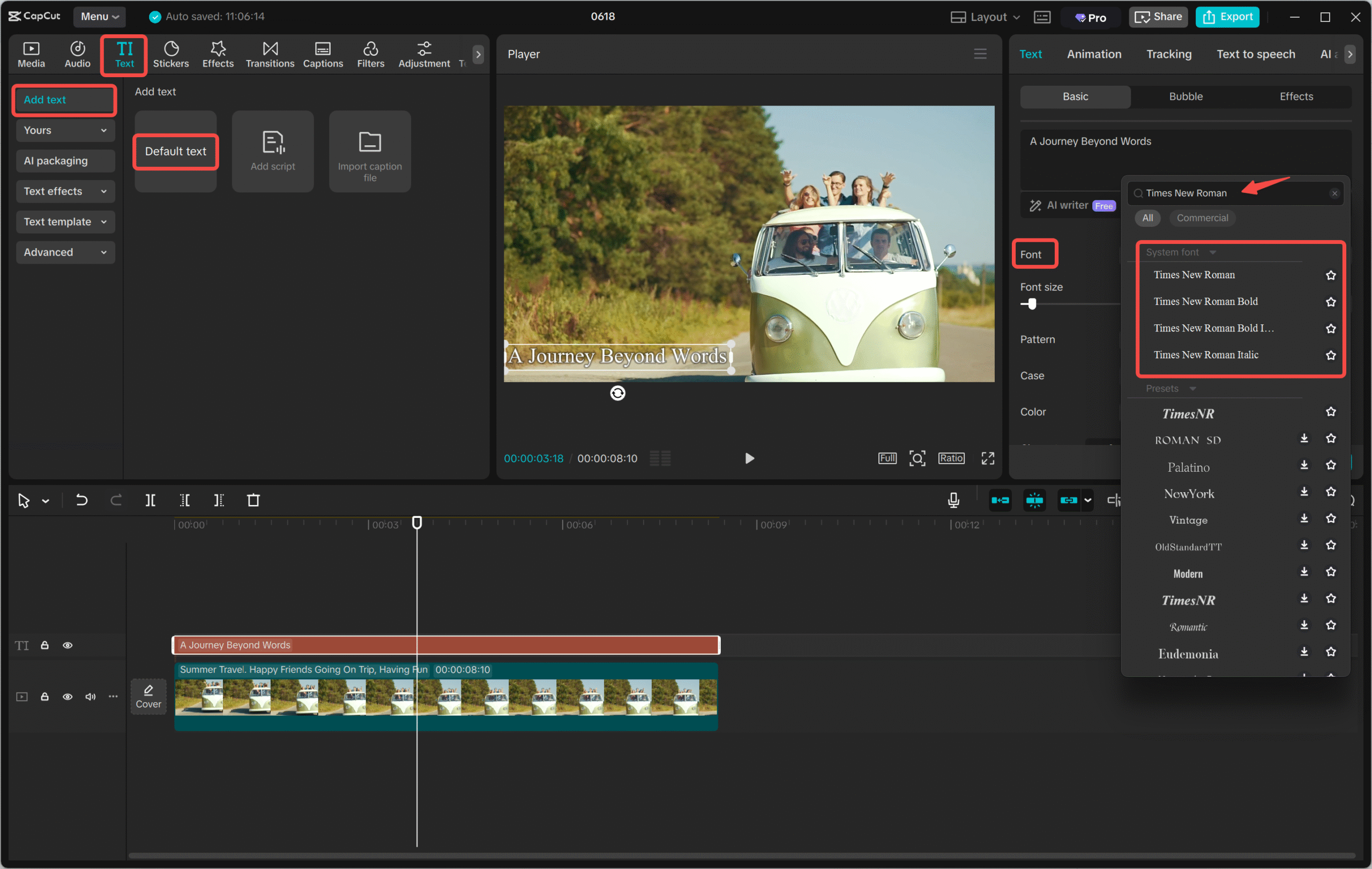
Text Studio
Text Studio is a user-friendly, all-in-one platform perfect for creating text-based graphics. Whether it’s for social media, blog images, or personal projects, this tool lets you generate text in Times New Roman and many other fonts.
You can customize size, color, and effects—all through your web browser. No installation needed.
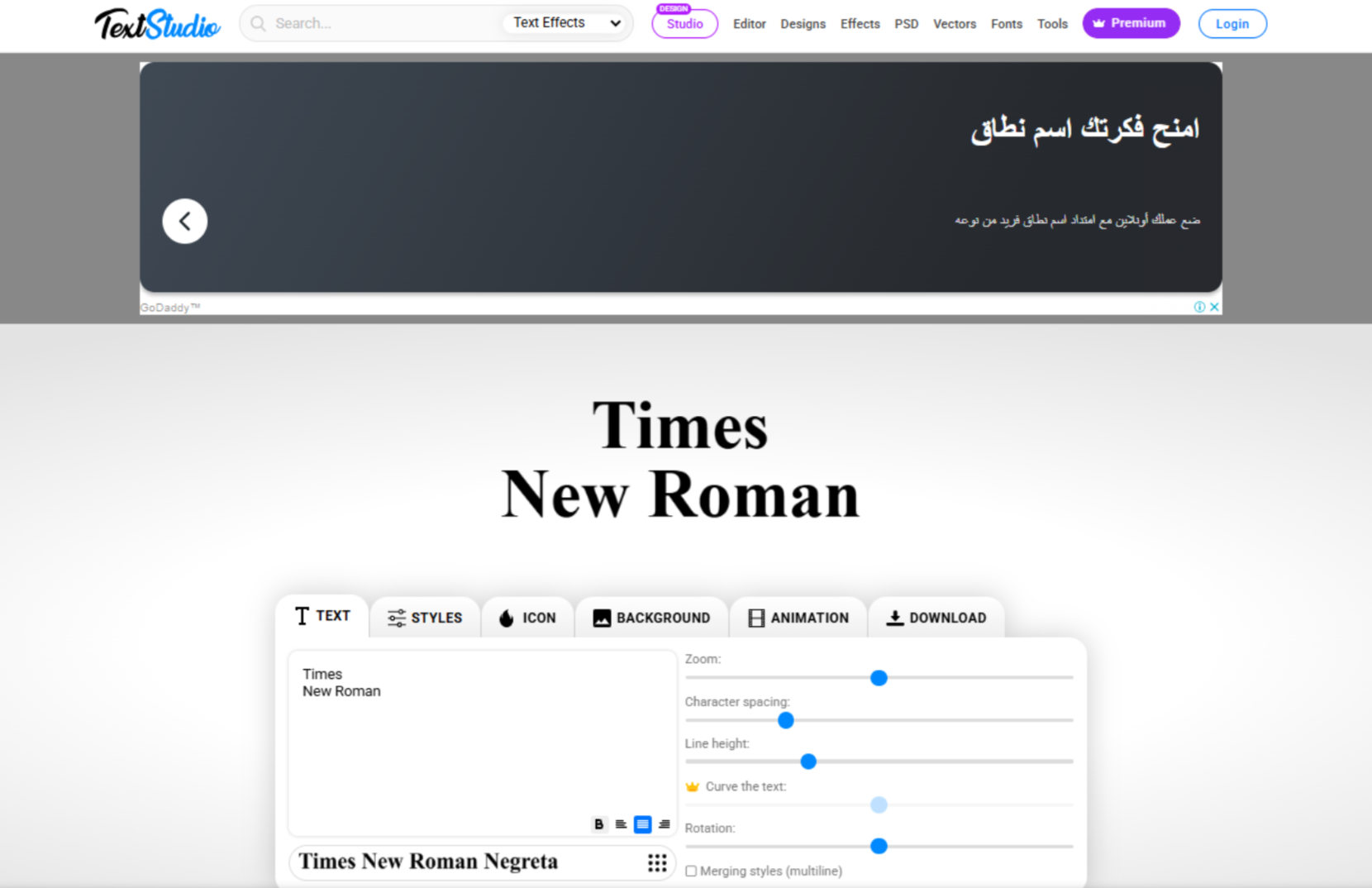
InstaFonts
If you’re looking for speed and simplicity, InstaFonts is a great Times New Roman font generator copy and paste tool. It’s designed for social media users who want to quickly create elegant text for captions, comments, or stories.
Just type, preview, copy, and paste—it’s that easy. And it’s completely free.
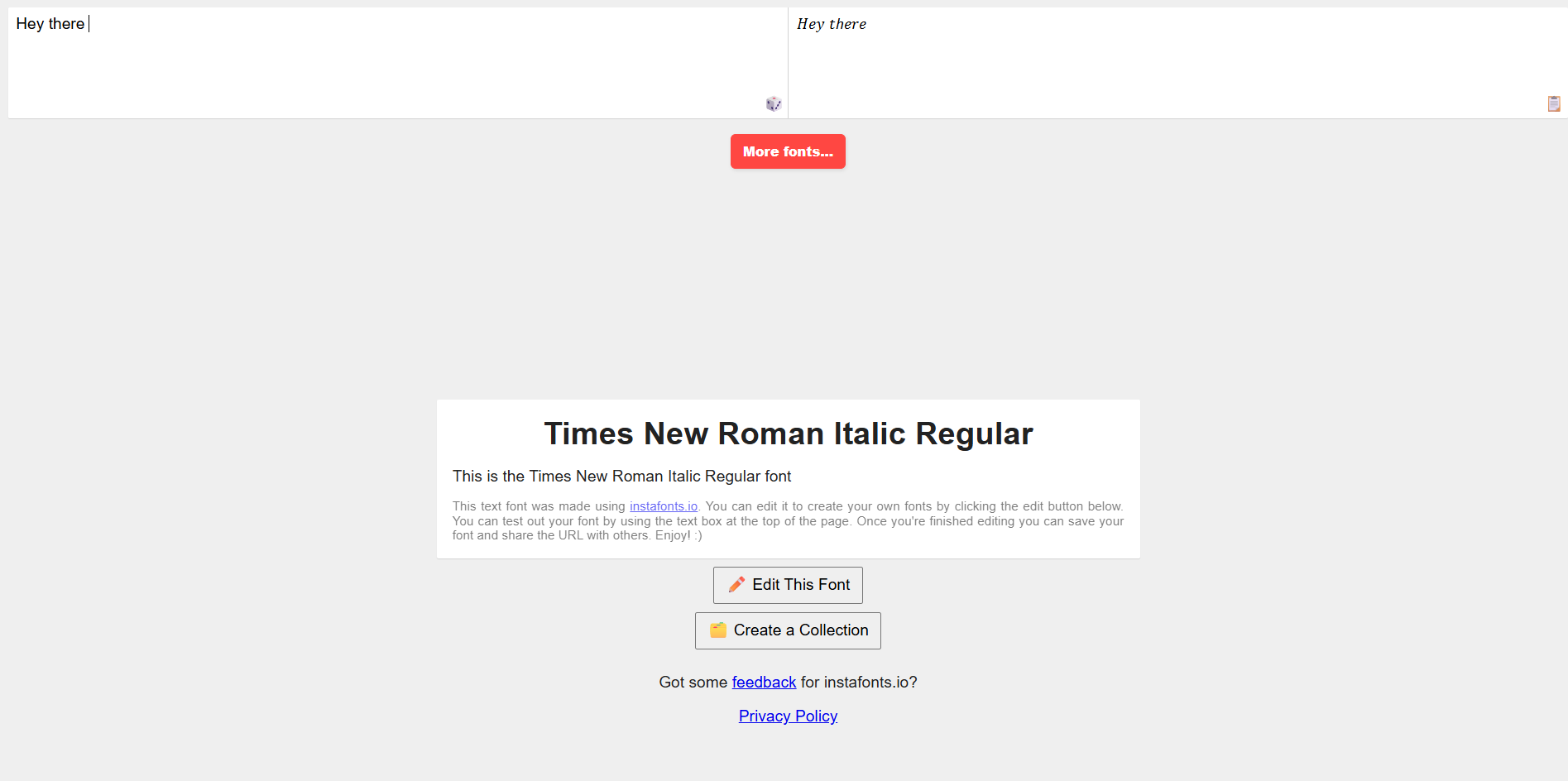
FontSpace
FontSpace offers a massive library of fonts, including a reliable new Times Roman font generator. You can generate text and download it as an image or copy the styled version for use elsewhere.
It’s a favorite among designers and content creators who need flexibility and variety.
FontGet
FontGet specializes in font generation with a clean, straightforward interface. Its Times New Roman font text generator lets you type, style, and export text within moments.
You can customize color and size, and the best part—no sign-up or installation is required.
Creative Ways to Use a Times New Roman Font Generator
These tools aren’t just for basic text—they can level up your projects in fun and practical ways. Here are some ideas:
Social Media Graphics
Make your Instagram quotes, Facebook announcements, or Twitter headers look more polished. A Times New Roman font generator gives your words a clean, authoritative look.